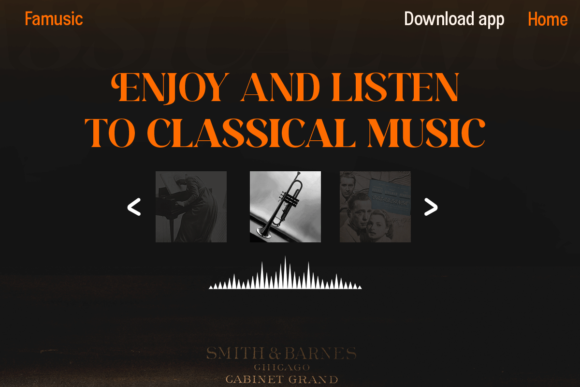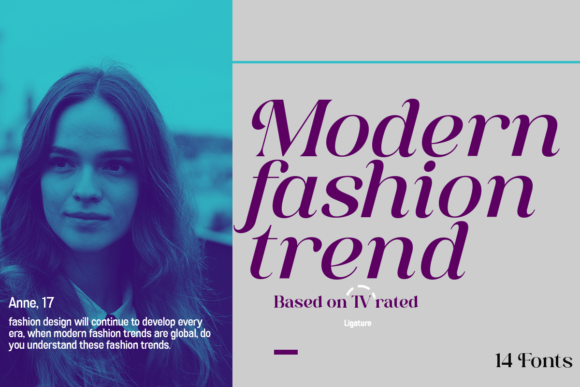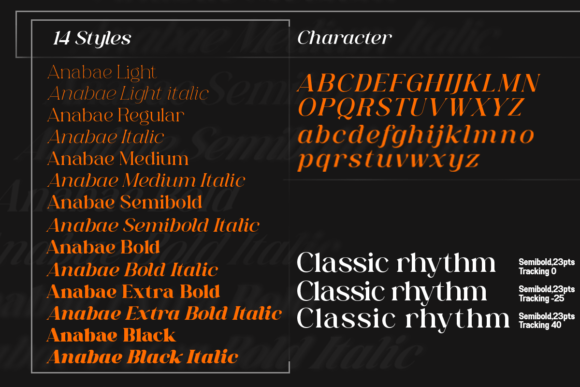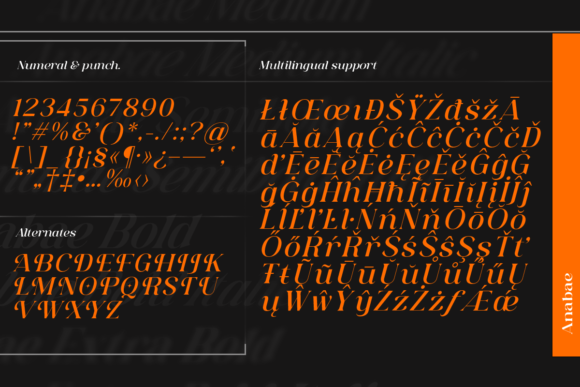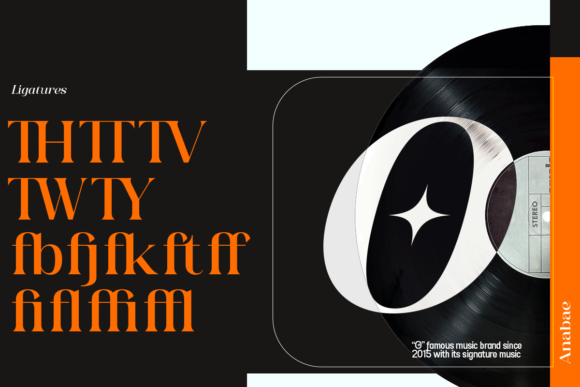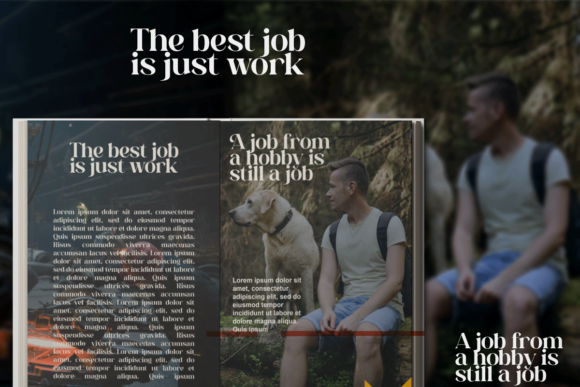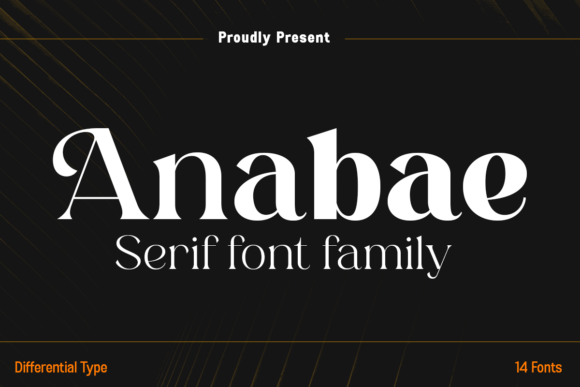
Introducing Anabae Font: The Ultimate Choice for Bold and Stylish Typography
In the world of typography, fonts play a crucial role in conveying the tone and personality of a design project. For designers and crafters looking for a bold, stylish, and thick lettered serif font, Anabae Font is an excellent choice. This versatile font is designed to make a statement, while its simple morphology ensures easy readability, making it perfect for displaying in any project you create.
What Makes Anabae Font Stand Out?
Anabae Font boasts a unique combination of characteristics that set it apart from other fonts. Its bold and thick lettering gives it a commanding presence, while its serif design adds a touch of sophistication and elegance. The font’s simple morphology is a deliberate design choice, making it easy to read and understand, even at smaller sizes.
One of the most significant advantages of Anabae Font is its PUA (Private Use Area) encoding. This means that you can access all the glyphs and swashes with ease, giving you unparalleled creative control over your typography. Whether you’re designing a logo, creating a poster, or crafting a social media graphic, Anabae Font provides the flexibility and versatility you need to bring your vision to life.
Key Features of Anabae Font
- Bold and Stylish: Anabae Font features bold and thick lettering that makes a statement.
- Easy to Read: The font’s simple morphology ensures easy readability, even at smaller sizes.
- PUA Encoded: Access all glyphs and swashes with ease, giving you creative control over your typography.
- Serif Design: Anabae Font features a classic serif design that adds a touch of sophistication and elegance.
- Versatile: Perfect for a wide range of design projects, from logos and posters to social media graphics and more.
Why Choose Anabae Font?
For designers and crafters looking for a reliable and versatile font, Anabae Font is an excellent choice. Its unique combination of bold and stylish lettering, simple morphology, and PUA encoding make it an ideal font for a wide range of design projects.
- Creativity: With access to all glyphs and swashes, Anabae Font gives you the creative freedom to experiment and try new things.
How to Use Anabae Font in Your Design Projects
- Pair it with Other Fonts: Combine Anabae Font with other fonts to create a unique and visually appealing typography.
- Play with Swashes: Use the glyphs and swashes to add a touch of personality and whimsy to your design.
In conclusion, Anabae Font is a bold, stylish, and versatile font that’s perfect for designers and crafters looking for a reliable and creative typography solution. With its simple morphology, PUA encoding, and classic serif design, Anabae Font is an excellent choice for a wide range of design projects. Whether you’re creating a logo, poster, or social media graphic, Anabae Font provides the flexibility and creativity you need to bring your vision to life.